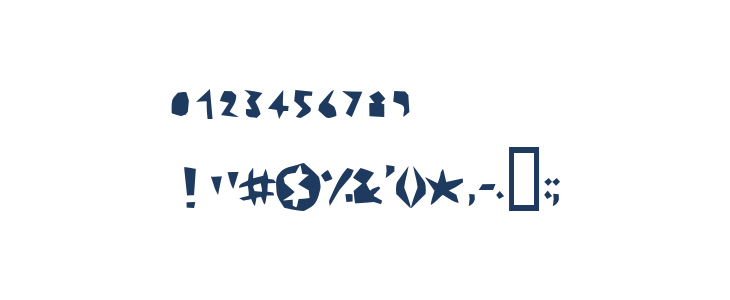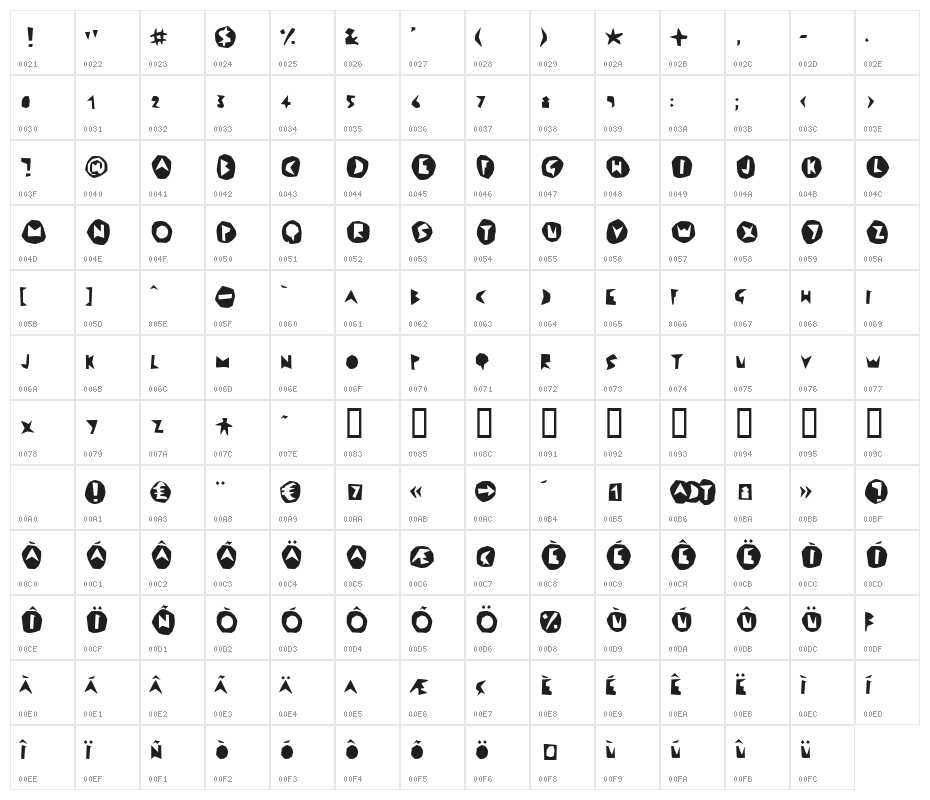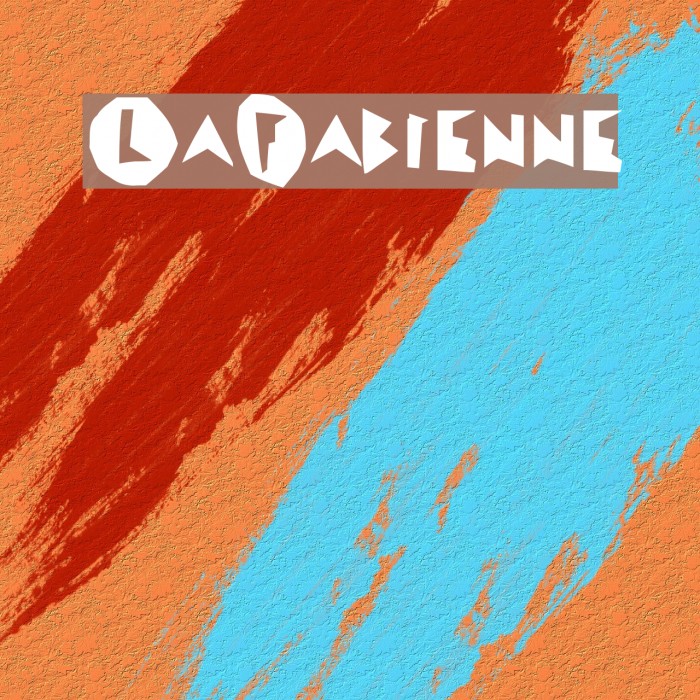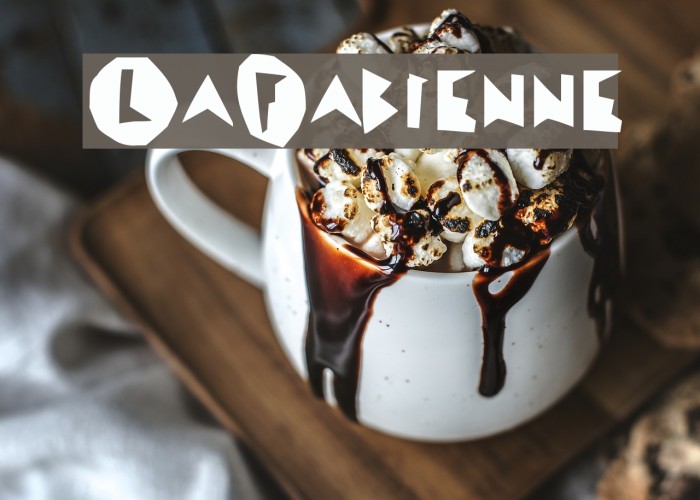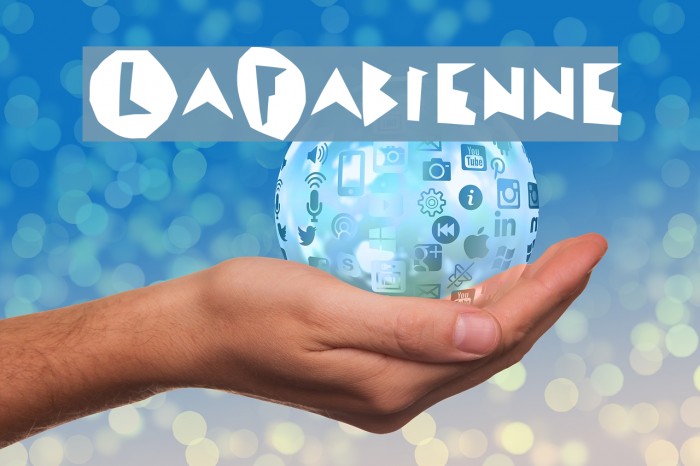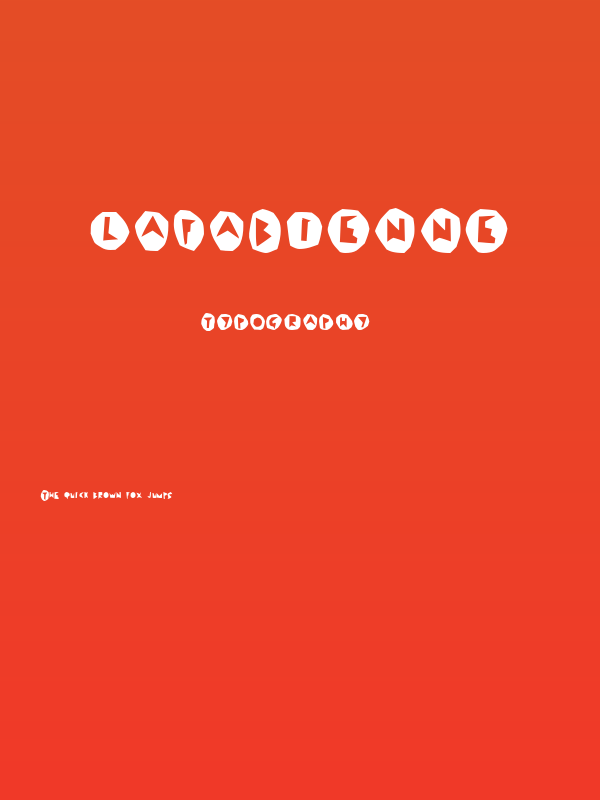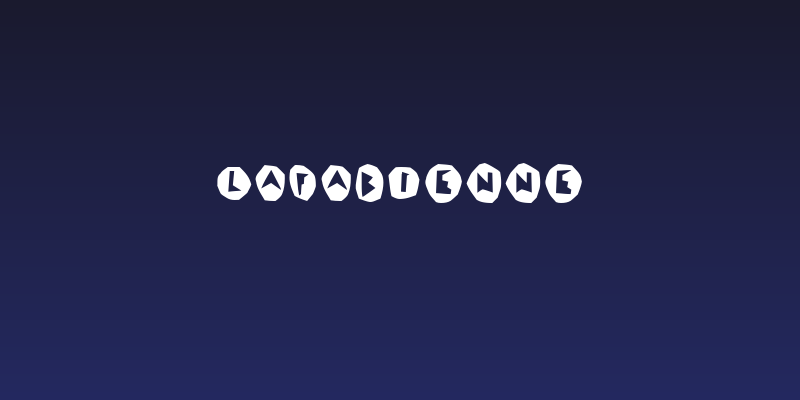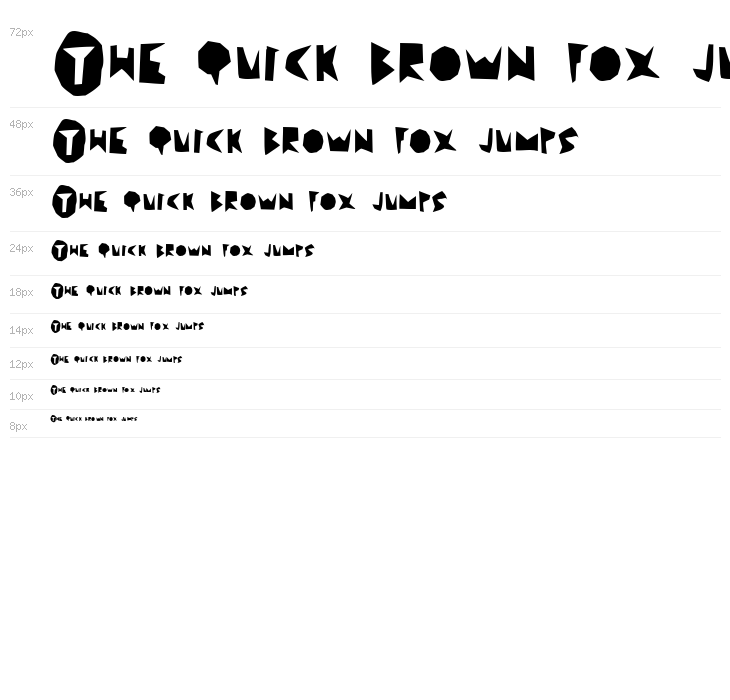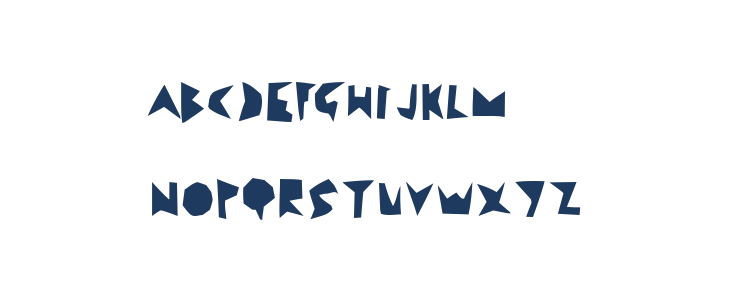
LaFabienne Font
LaFabienne Description
This font features a bold and edgy design with a distinctly angular and geometric style. Each character is crafted with sharp, irregular edges, giving it a rugged and dynamic appearance. The uppercase and lowercase letters maintain a consistent theme, while the numbers and special characters are equally bold and striking. This font's unique style makes it stand out, offering a modern and unconventional look that is both artistic and eye-catching. Its design is reminiscent of cut-out paper shapes, adding a playful yet sophisticated touch to any project.
| Proposed Projects | Ideal for posters, album covers, branding, and any project requiring a bold, artistic statement. |